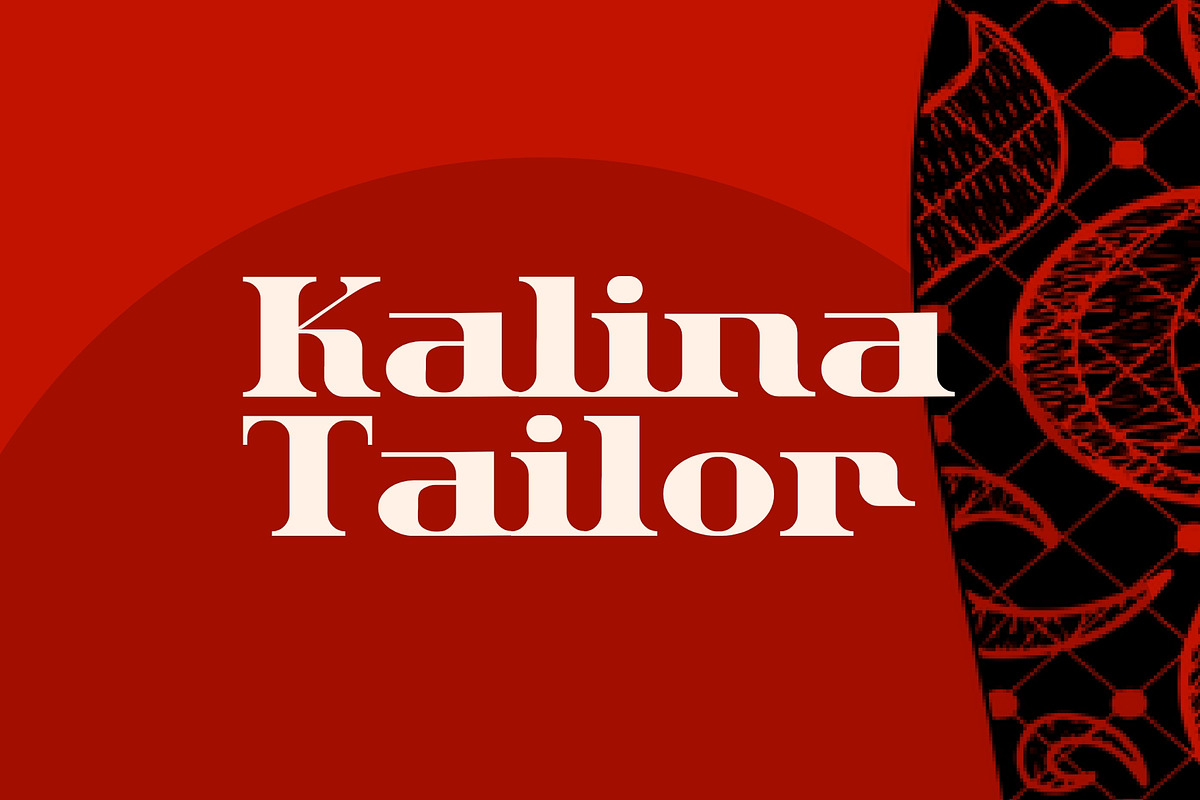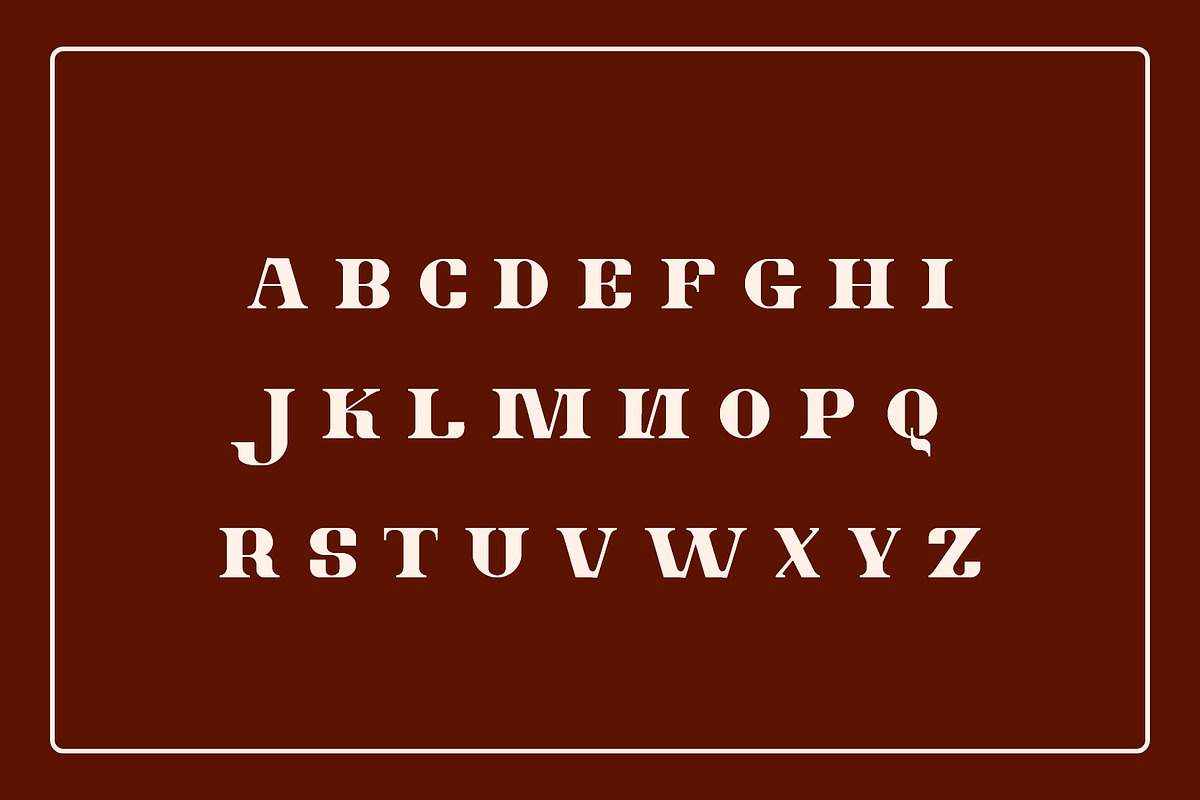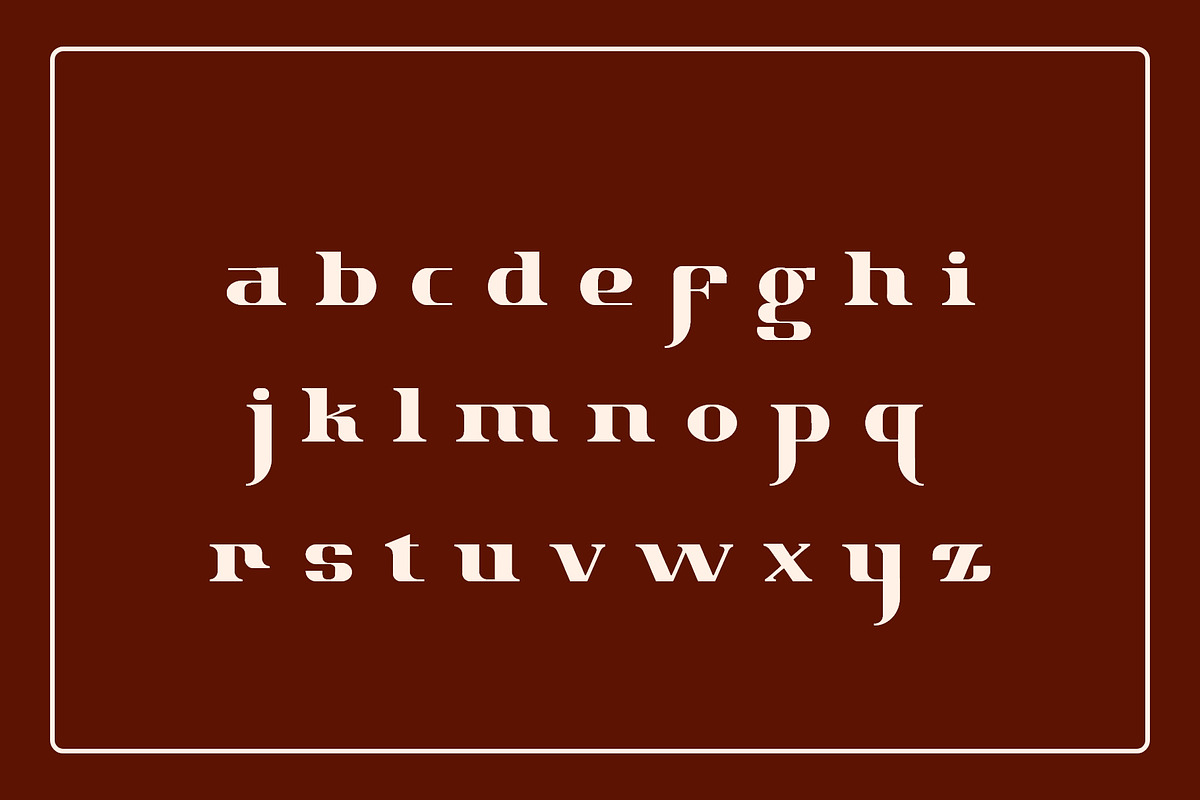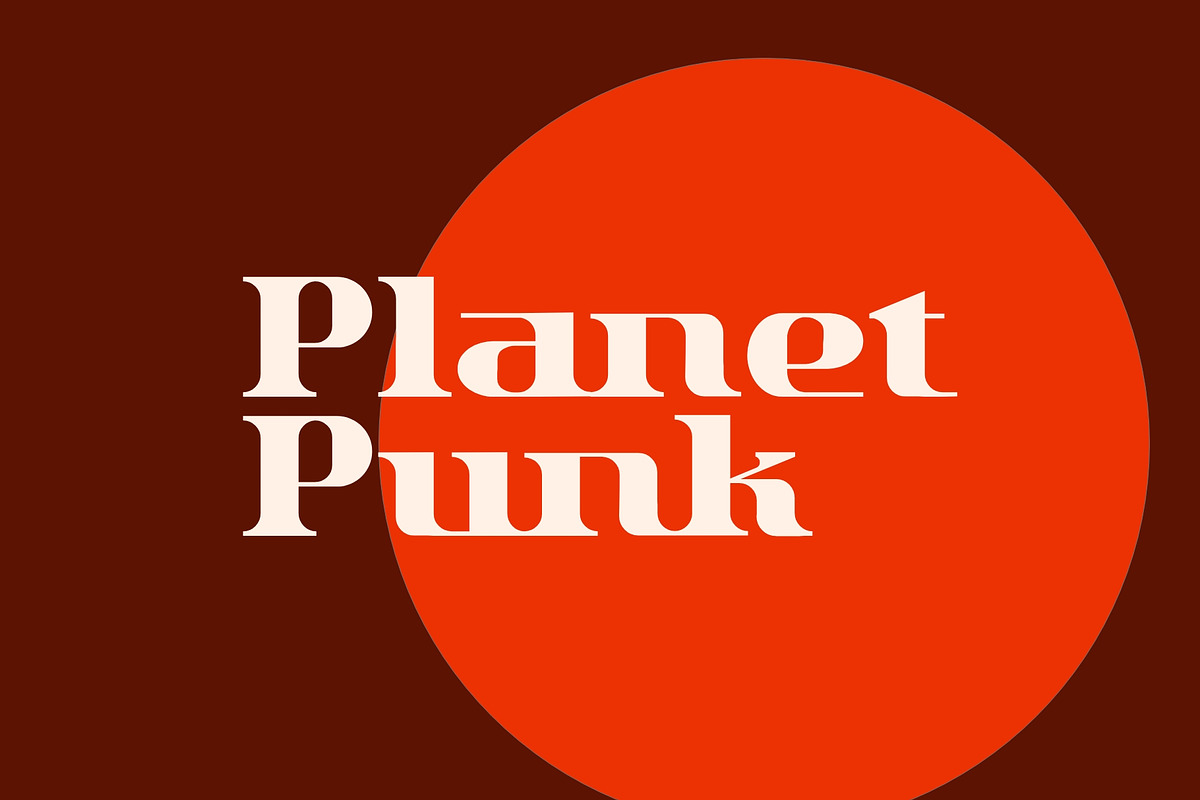
Chicago Retro is a combination font between 70's Modern or Vintage and the modern era, this font is very versatile, spanning a wide variety of projects, from bold magazine imagery, to wedding invitations, to branding, poster design, and much more.